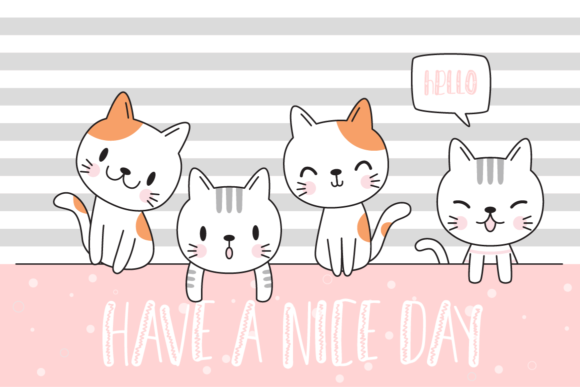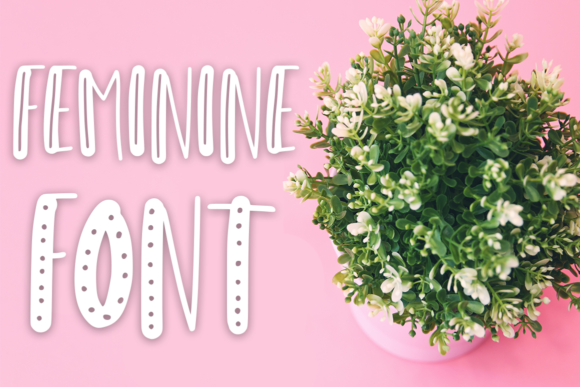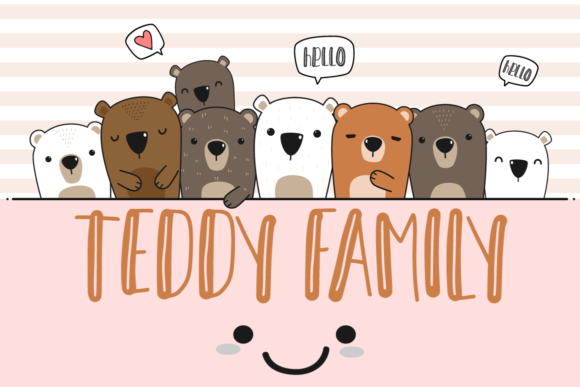
Introduction to Honey Taste Font
Remember the moment when you stumbled upon the perfect design element that instantly elevated your project from ordinary to extraordinary? For designers, those ‘aha’ moments are what make our creative journey so fulfilling. One such moment arrived for me when I discovered the adorable Honey Taste Font, a delightful display font that embodies the essence of joy and friendship.
As a go-to design resource, Honey Taste Font is more than just a font – it’s a way to bring your children’s designs to life with its playful, high-quality characters. With its transparent background, you can easily incorporate it into various creative projects, from digital illustrations to print materials. And the best part? It’s available for free download, making it an invaluable addition to any designer’s toolkit.
Key Features of Honey Taste Font
- High-quality design resource with a unique, hand-drawn aesthetic, perfect for creative projects.
- Features a modern, whimsical design style, making it suitable for a variety of creative projects, from branding to editorial design.
Honest Review: Honey Taste Font
As a designer, I’m always on the lookout for new and exciting fonts to enhance my creative projects. The Honey Taste Font caught my eye, and I was curious to see if it lived up to its promise. In this review, I’ll share my honest thoughts on this font.
- ✨ High-quality design: The Honey Taste Font is beautifully crafted, with a unique and elegant style that’s perfect for creative projects.
- ⚠️ Limited character set: The font only includes a basic set of characters, which might not be sufficient for more complex design projects.
- ⚠️ Not suitable for large-scale text: While the font looks great for smaller text sizes, it may not be the best choice for large-scale text or headings.
Overall, I’m impressed with the Honey Taste Font, but it’s essential to consider its limitations before incorporating it into your design project. With a little creativity and resourcefulness, this font can be a valuable addition to your design resource library.
Tips for Getting the Most Out of Honey Taste Font
For a high-quality design, use the Honey Taste Font in combination with a transparent background to create a seamless look. Experiment with different font sizes and styles to add visual interest to your project.
The Honey Taste Font is a versatile design resource that can be used in a variety of creative projects, including food blogs, recipe books, and product labels. It’s also a great choice for designing menus, packaging, and other marketing materials.